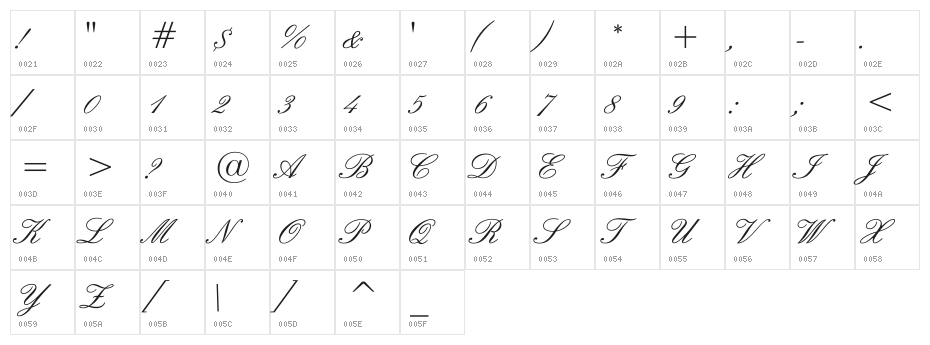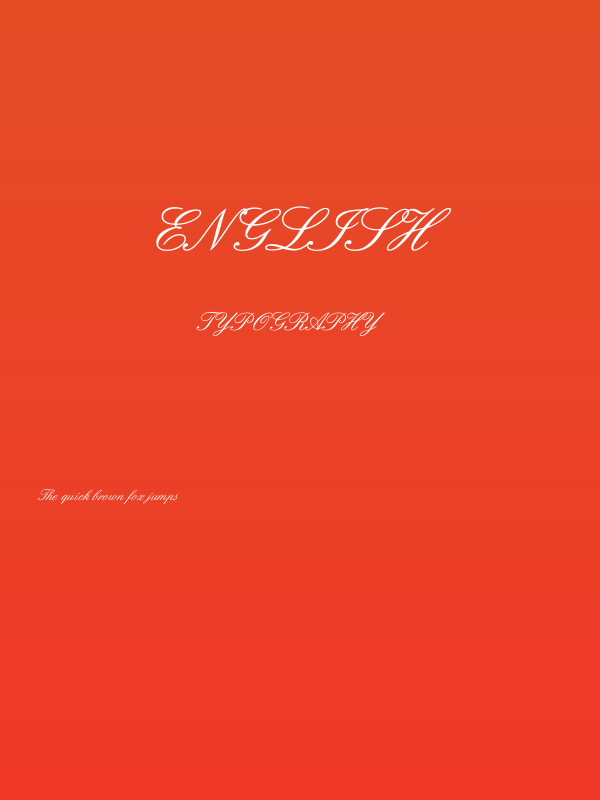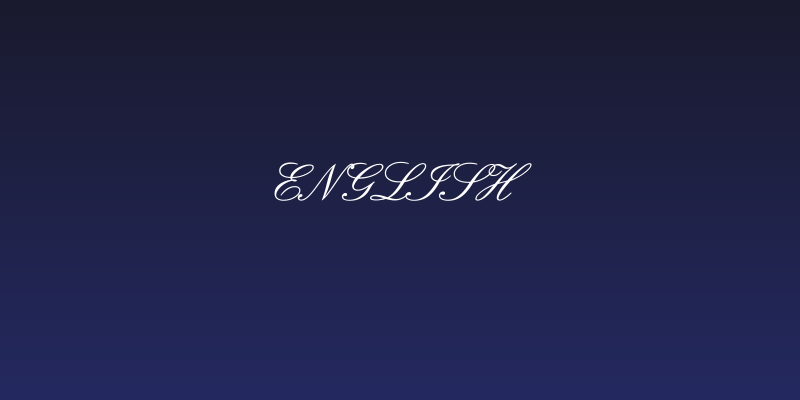
English Font
English Description
This elegant script font features flowing, cursive letters with a classic and sophisticated appearance. The uppercase letters are ornate, with intricate loops and flourishes, while the lowercase letters maintain a smooth, connected style that enhances readability. The numerals and special characters are designed to complement the overall aesthetic, offering a cohesive look across all characters. The font's graceful curves and balanced proportions make it ideal for formal invitations, branding, and decorative purposes. Its timeless elegance is suitable for projects that require a touch of refinement and class.
| Overall Style | Classic |
| Use Case | Logos, Invitations, Decorative text |
| Proposed Projects | Ideal for wedding invitations, luxury branding, greeting cards, and decorative signage. |